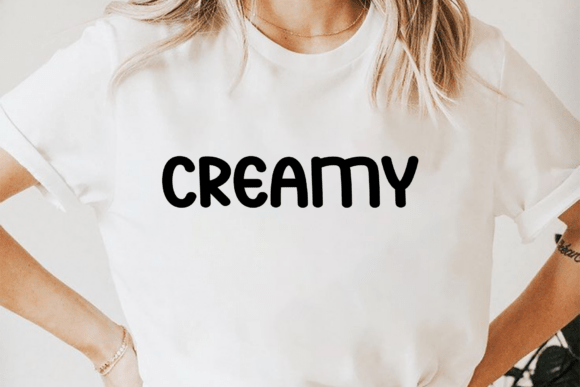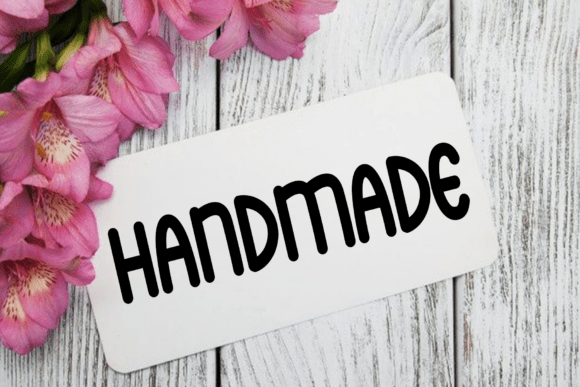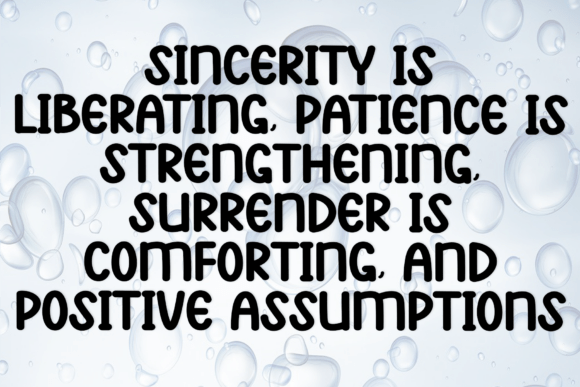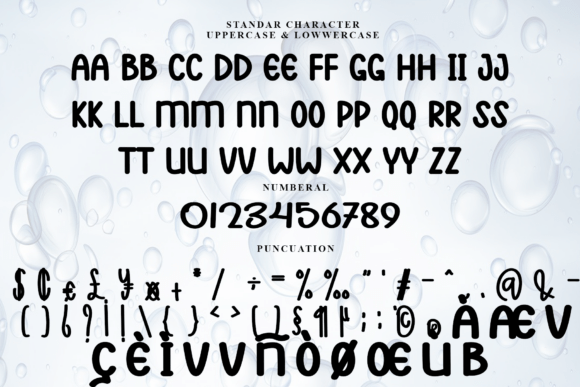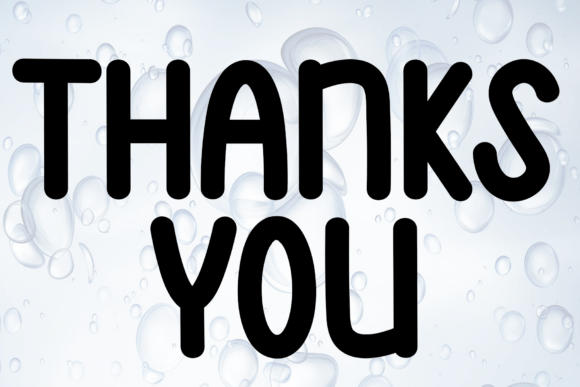
The Quest for the Perfect Font: Discovering Bubble Water
I’ll never forget the time I was working on a branding project for an outdoor gear company. I had the logo, the color palette, and the overall aesthetic nailed down, but I was struggling to find the perfect font to tie everything together. The client wanted something that felt adventurous, yet approachable; bold, yet elegant. I scoured the internet, tried out dozens of fonts, but nothing seemed quite right. That was until I stumbled upon Bubble Water.
First Impressions: A Bold and Sturdy Handwritten Display Font
Bubble Water is a bold and sturdy handwritten display font that blends organic charm with a strong typographic presence. Its thick, solid strokes have a distinct “bouncy” rhythm that gives it a friendly and approachable character. Part of the “Unique and Professional” collection, its well-balanced proportions ensure it remains impactful even in busy designs.
• ✨ Unique and distinctive character: Bubble Water has a one-of-a-kind personality that sets it apart from other fonts.
• âś… Highly legible: Despite its bold and playful nature, Bubble Water remains easy to read, even at smaller sizes.
• đź’Ą Versatile: This font can be used for a wide range of projects, from outdoor lifestyle branding to rustic event invitations.
• 🤔 Limited use for body text: Due to its bold and playful nature, Bubble Water may not be the best choice for longer blocks of text.
• ⚠️ May not be suitable for very formal projects: Bubble Water’s friendly and approachable vibe may not be the best fit for very formal or corporate projects.
Bubble Water supports OpenType features, including glyphs and stylistic alternates. These features allow you to customize the font to suit your project’s needs. For example, you can use the stylistic alternates to create a more playful or whimsical feel.
The Story Behind Bubble Water
Bubble Water was designed by a team of typographers who wanted to create a font that captured the spirit of adventure and exploration. Inspired by the great outdoors, they crafted a font that is both bold and elegant, with a unique character that sets it apart from other fonts.
Q: What is Bubble Water?
A: Bubble Water is a bold and sturdy handwritten display font that blends organic charm with a strong typographic presence.
Q: What is Bubble Water suitable for?
A: Bubble Water is perfect for outdoor lifestyle branding, organic product packaging, travel-themed graphics, and rustic event invitations that need a “smart” and adventurous handmade look.
Q: Can I use Bubble Water for body text?
A: While Bubble Water is highly legible, it may not be the best choice for longer blocks of text due to its bold and playful nature.
Q: Is Bubble Water an OpenType font?
A: Yes, Bubble Water supports OpenType features, including glyphs and stylistic alternates.